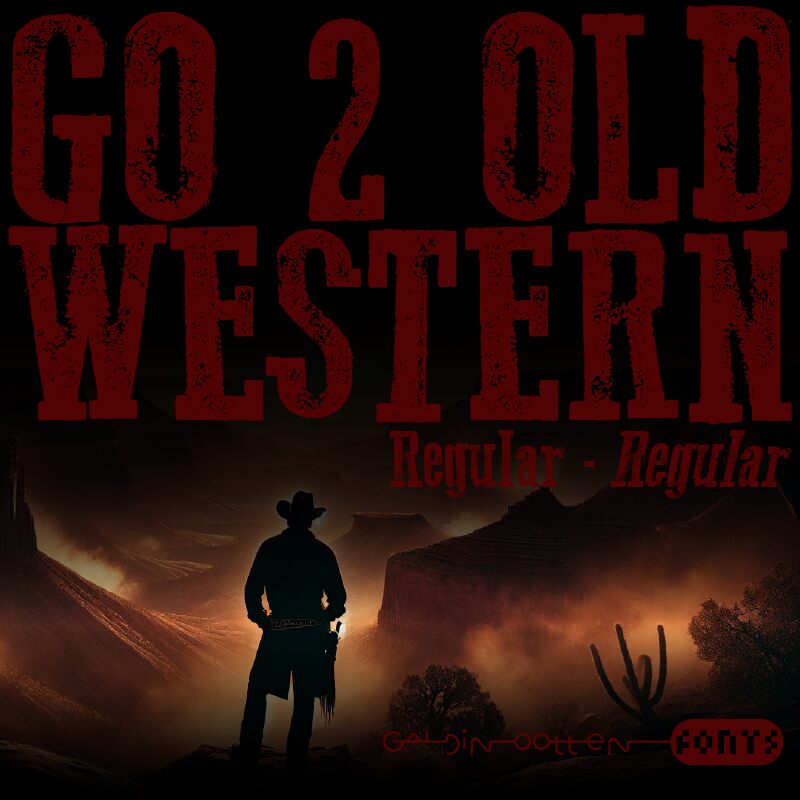
Go 2 Old Western Italic
Go 2 Old Western Italic font by Galdino Otten Fonts has a classic Western-looking style with a vintage vibe. The condensed letters are decorated with eroded edges, adding authenticity and enhancing the font’s rugged appearance. This free display font impresses with an overall cowboy aesthetic that instantly reminds us of posters from back in the day.
Use it for designing catchy event posters, retail labels like for Texas leather boots or BBQ sauces, music CDs or book covers, restaurant menus, social media posts – especially Instagram and Pinterest boards, apparel graphics/branding like t-shirts and hats, headings within newspaper/magazine articles.